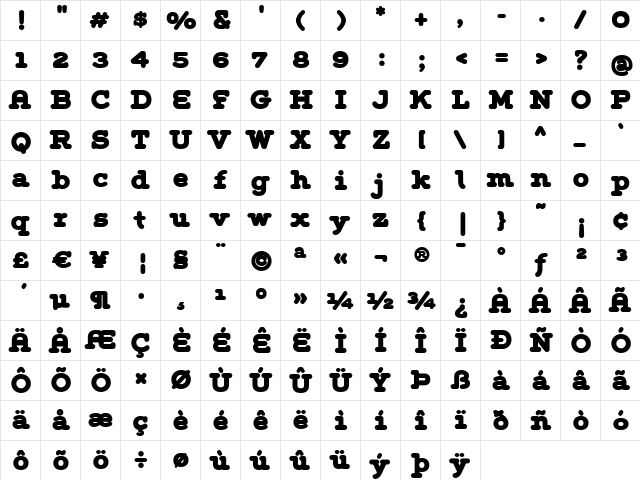
Grover Slab Heavy Regular
Design Context for Grover Slab Heavy Typeface
Grover Slab Heavy features prominent, blocky serifs that give it a confident, grounded presence — equally at home in editorial settings and bold branding work.
Suited to magazines, political campaign materials, bold packaging, and any setting where authority matters.
Pro Tip: Use Grover Slab Heavy for headlines and subheadings where its slab serifs can make an impression. It also holds up well in mid-size body copy thanks to its sturdy construction.